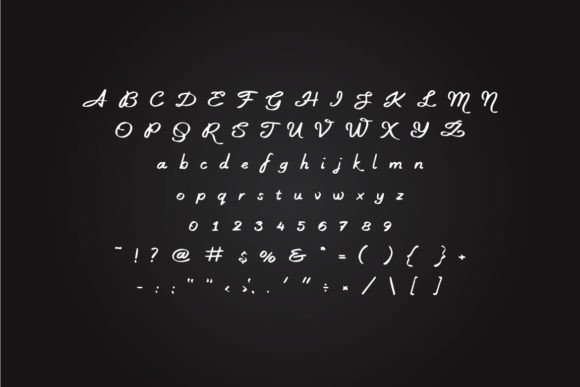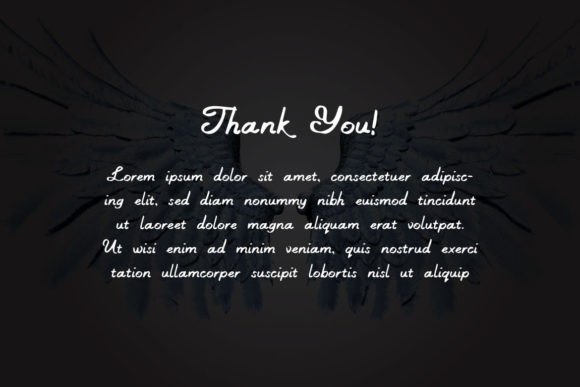
Introduction to Black Fairy Font
Black Fairy is a neat and fresh handwritten font.
Whatever the topic, this font will be a wonderful asset to your font library, as it has the potential to enhance any creation .
Black Fairy Font offers exceptional quality and versatility, making it a valuable addition to your design toolkit. Whether you’re creating for personal projects or commercial use, Black Fairy Font delivers professional results.